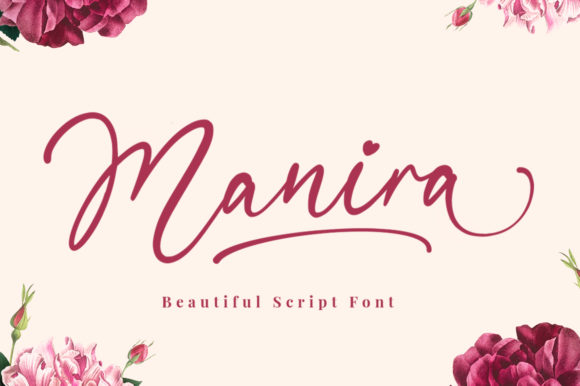
Embark on an enchanting journey with Manira Font, a captivating script crafted by Jupiter Studio. This enchanting font is infused with elegance, fusing timeless grace with authentic calligraphy. Experience the harmony of classic style and inviting charm as you weave your creative spells.
Manira Font is your key to unlocking captivating designs, inviting logos, and alluring invitations. Its ethereal aura brings a touch of magic to your projects, whether you're designing enchanting posters or weaving enchanting tales. Each letter dances across the page with a graceful flow, captivating your audience with its undeniable allure.
Immerse yourself in the world of Manira Font, where imagination meets artistry. Its meticulously crafted characters evoke a sense of wonder and whimsy, transporting your designs to a realm of enchantment. Let your creativity soar as you conjure captivating content that captivates and inspires.